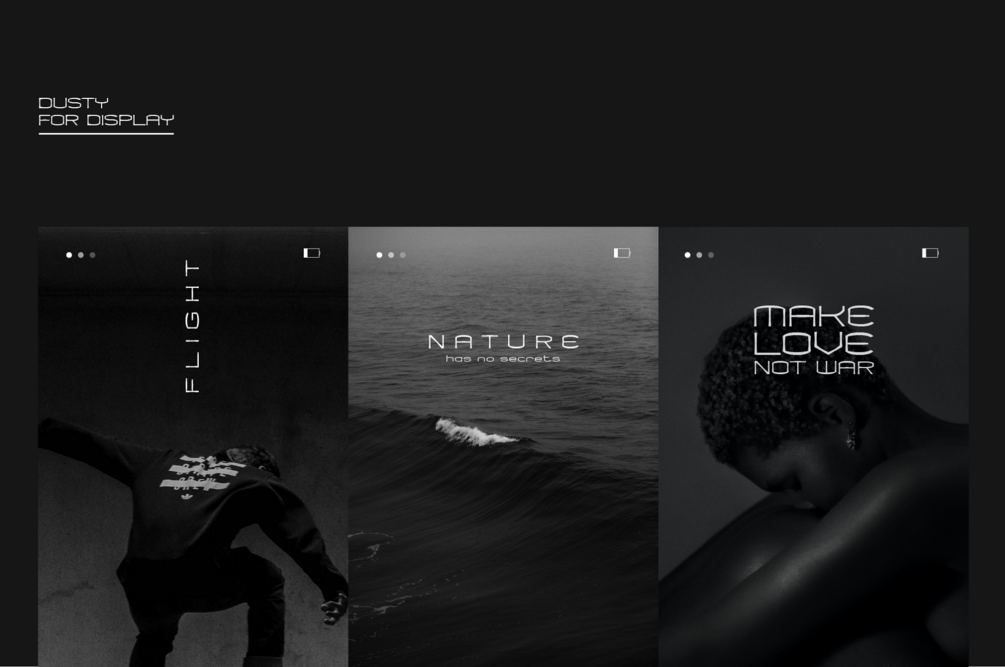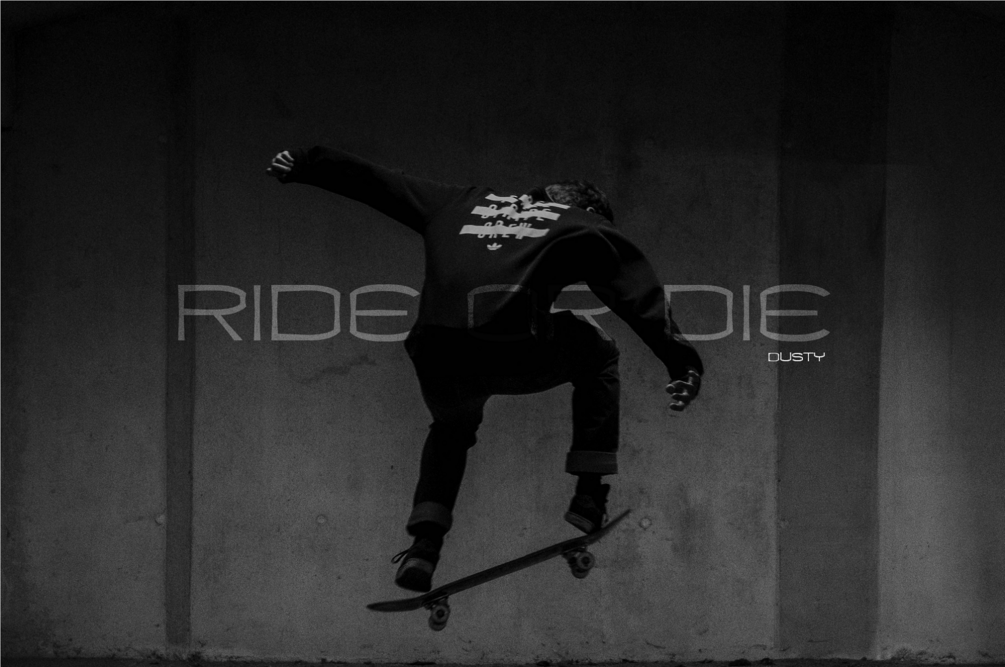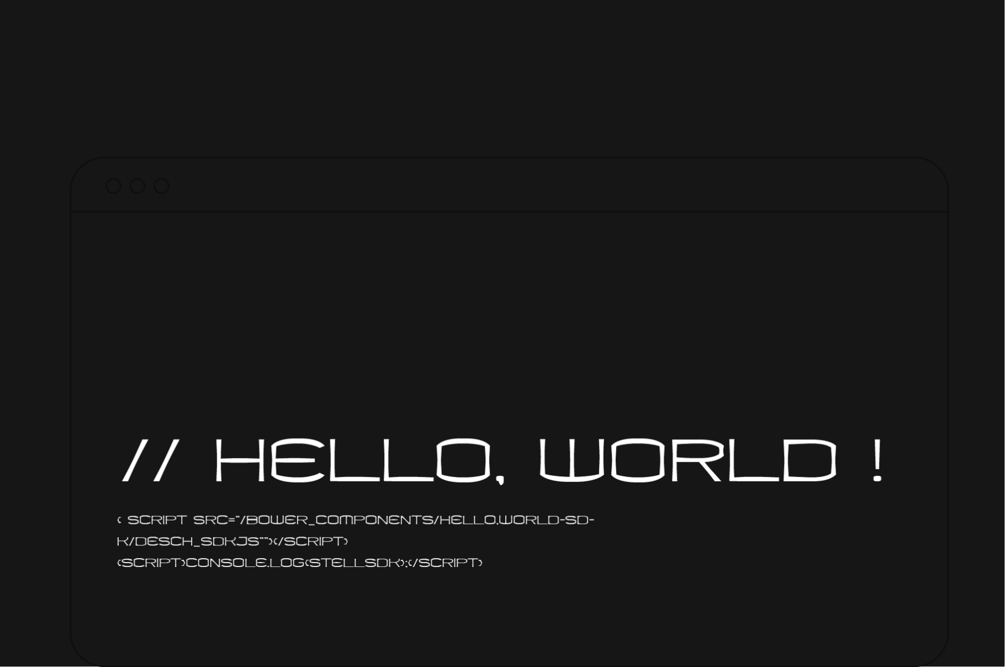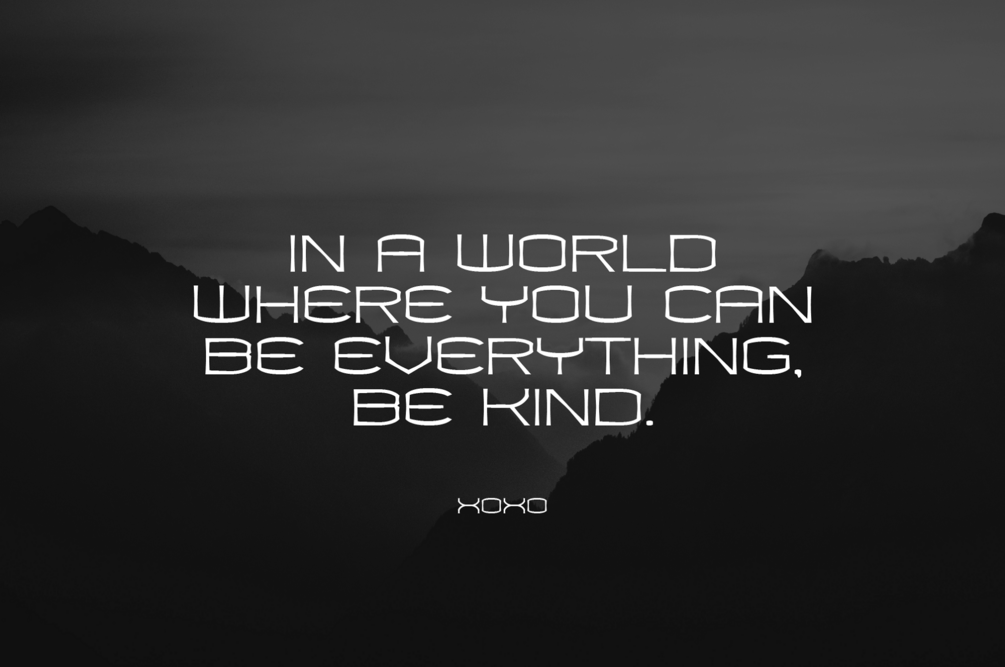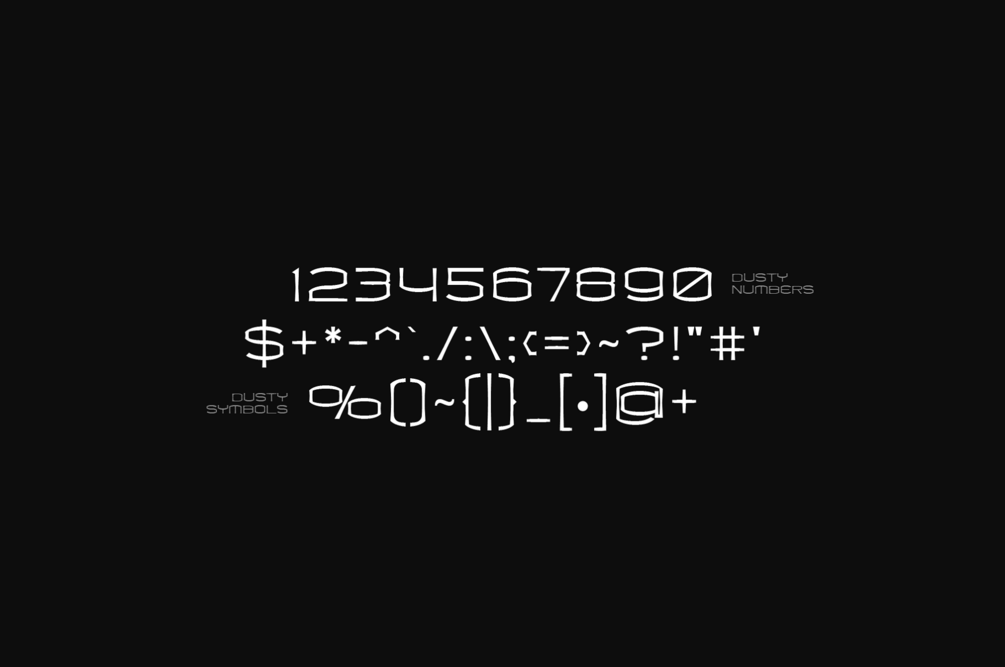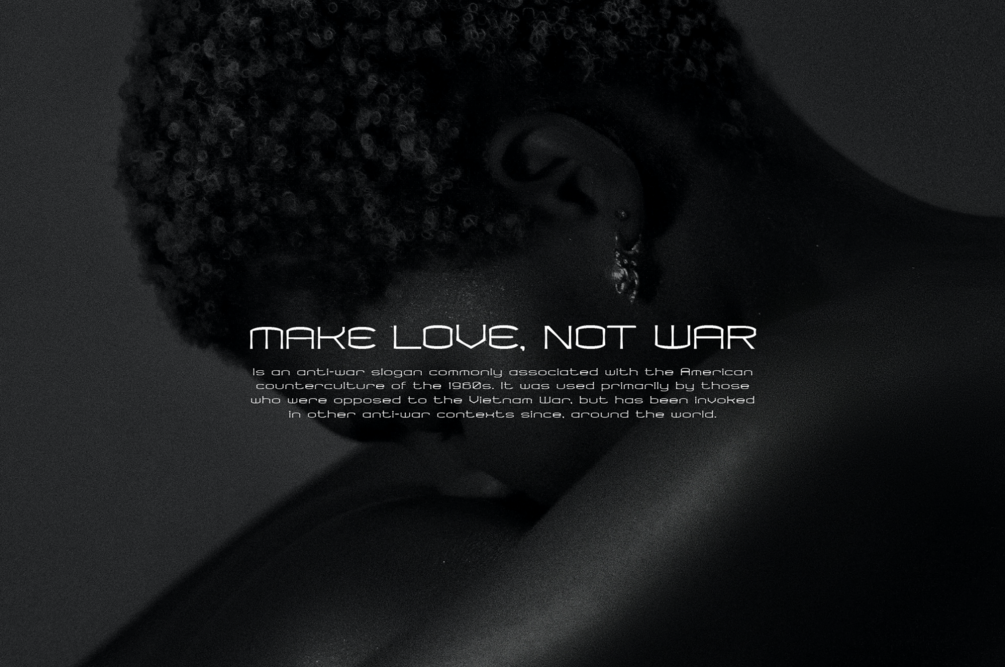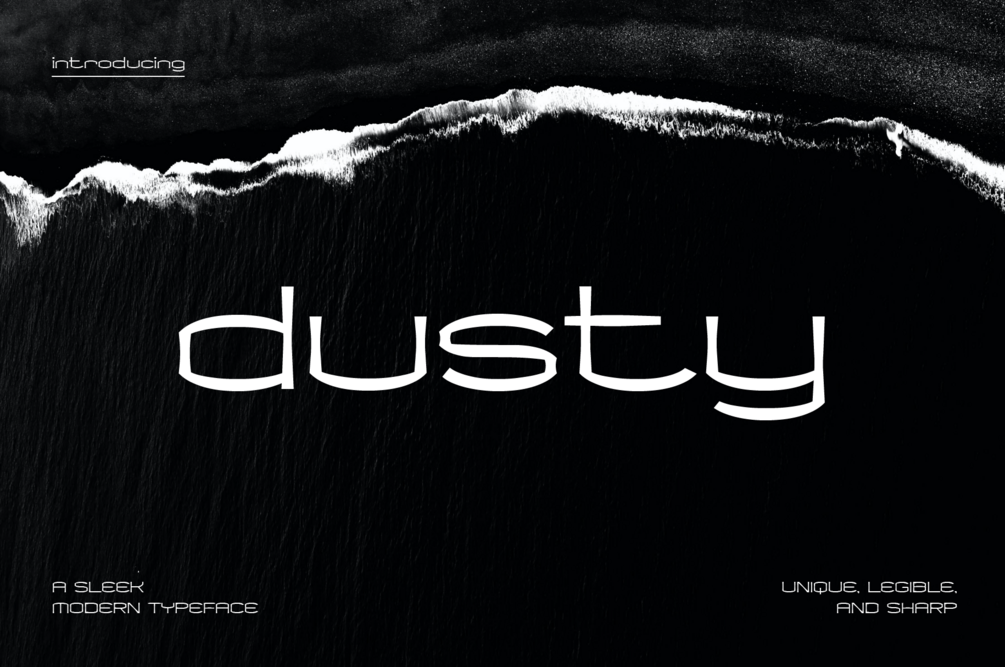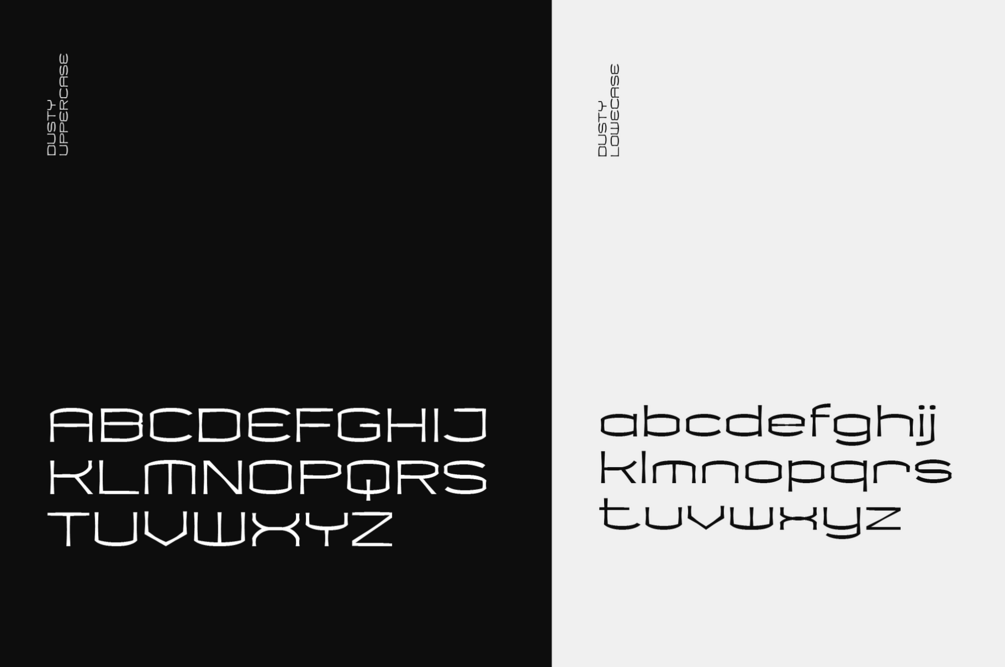
Dusty - Sleek Modern Display
Dusty is a sleek modern display typeface perfect for high exposure without that unnecessary distraction. Its clean futuristic look is perfect for sci-fi, video games, sports, and technology themed projects. Dusty is intended to be used for headings,, branding, logos, wordmarks and other application rather than typing a body of text. If you need a head turning geometric display, then Dusty is for you.